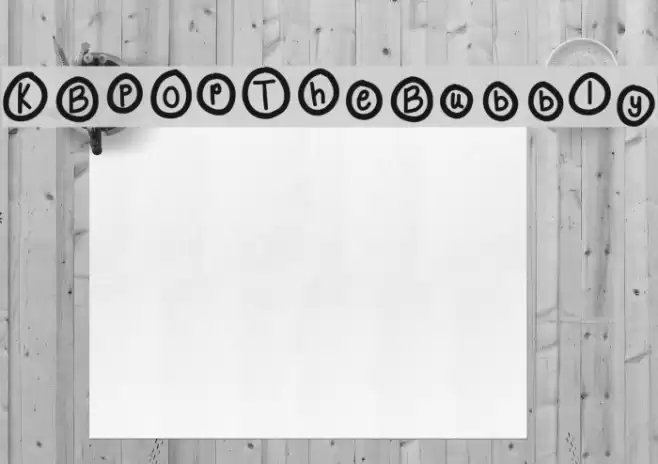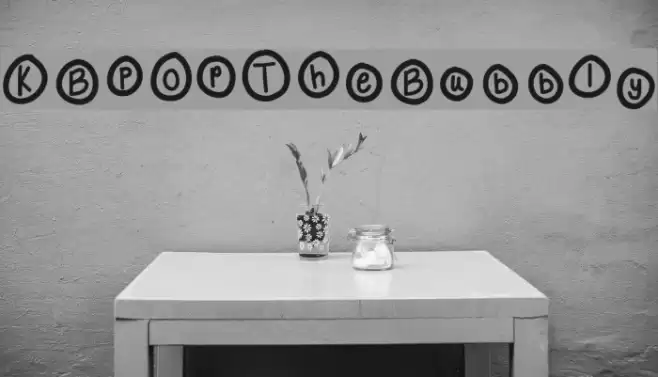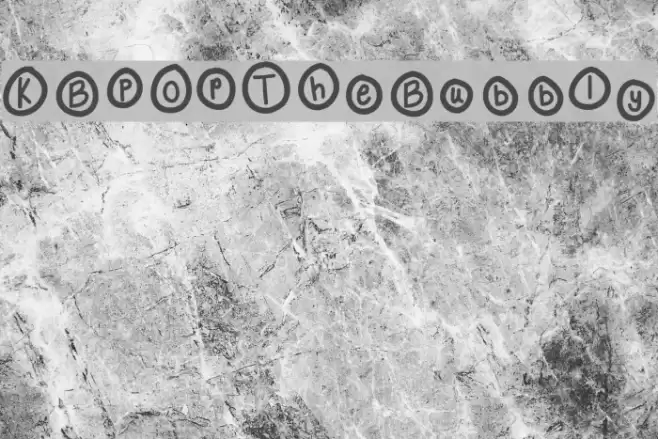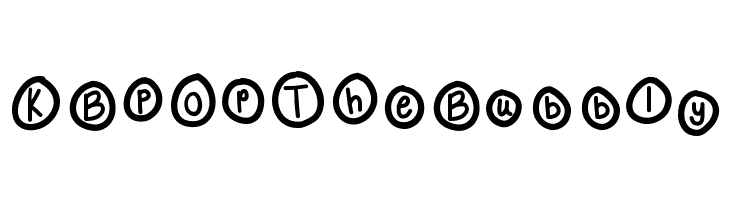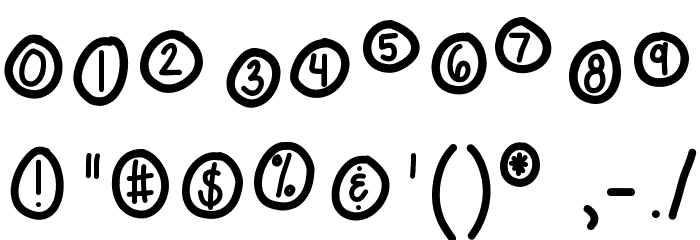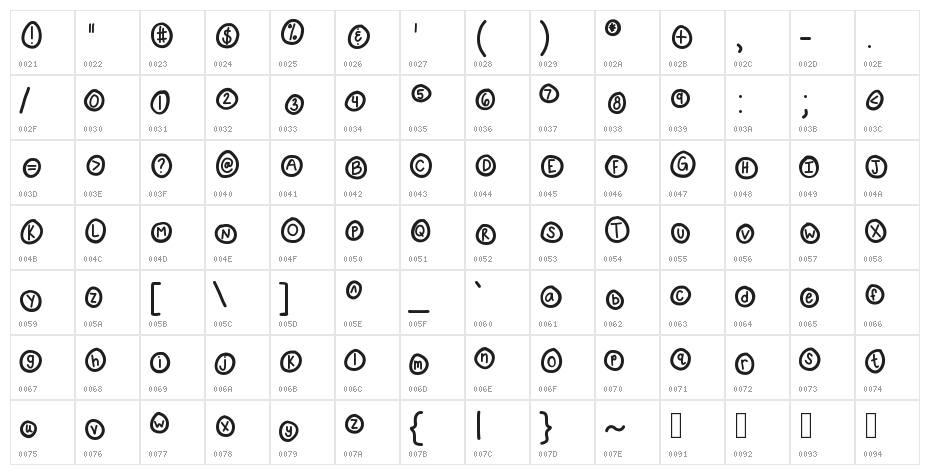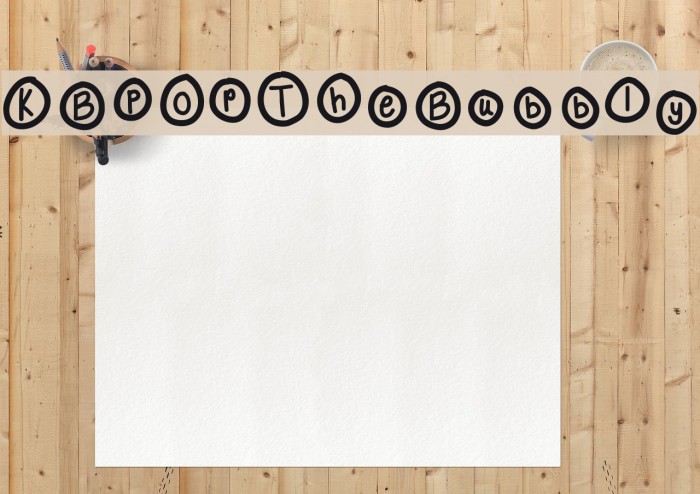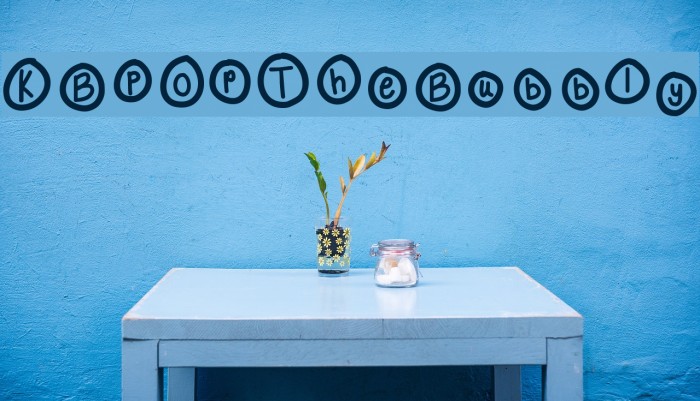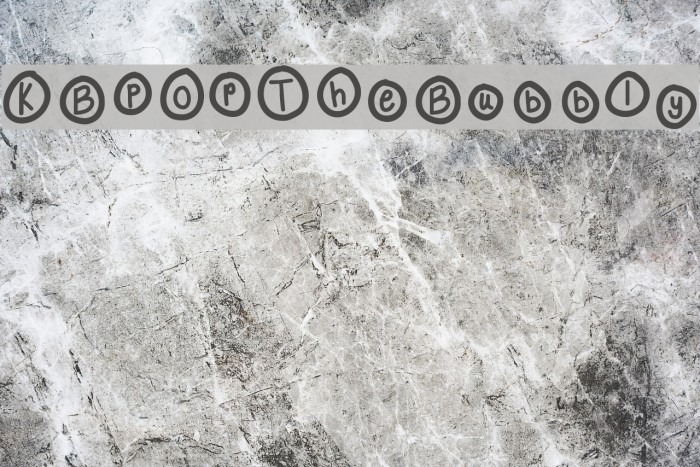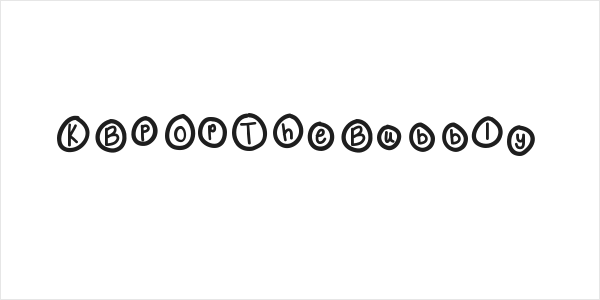
KBPopTheBubbly Font
KBPopTheBubbly Description
This playful and whimsical font features characters enclosed in circular bubbles, giving it a unique and eye-catching appearance. The letters are bold and rounded, with a hand-drawn feel that adds a touch of fun and informality. The uppercase and lowercase letters maintain consistent styling, while the numerals and special characters are equally engaging, each encased in its own bubble. The font's design is reminiscent of doodles or comic book lettering, making it ideal for projects that require a lighthearted and approachable aesthetic.
A playful, bubble-encased font with a hand-drawn, whimsical style from Uncategorized fonts.
- Proposed Projects: Ideal for children's books, comic strips, playful branding, party invitations, and creative posters.
- Overall Style: Whimsical, Playful